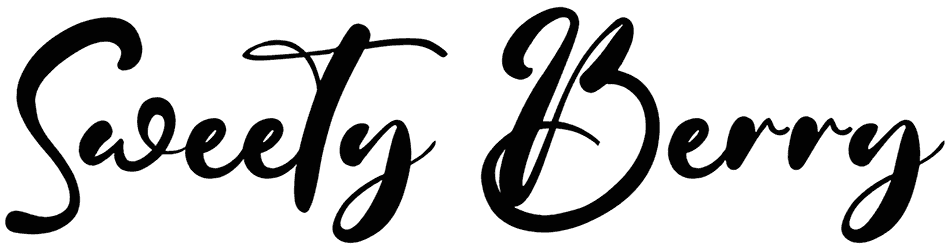
Sweety Berry Font
Have a sweet and appealing layout with a lovely handwritten font named Sweety Berry. This modern font consists of twisty and soft letters and can convey an elegant mood. With an almost full cover of characters, this sweety berry font is an adorable pick for a lot of novel designs like planners, apparel, illustrations, logos, and so on.